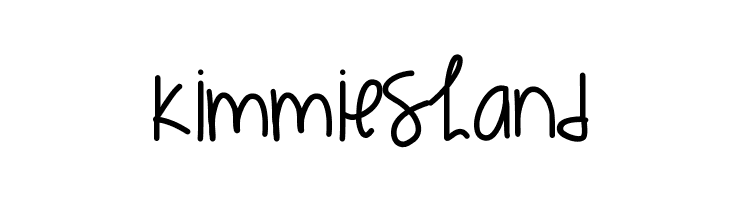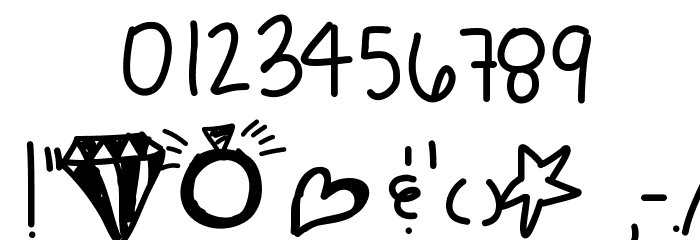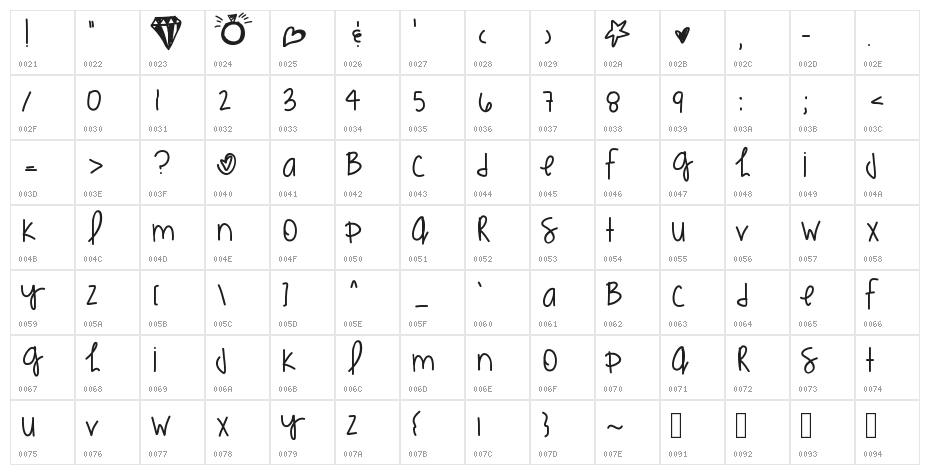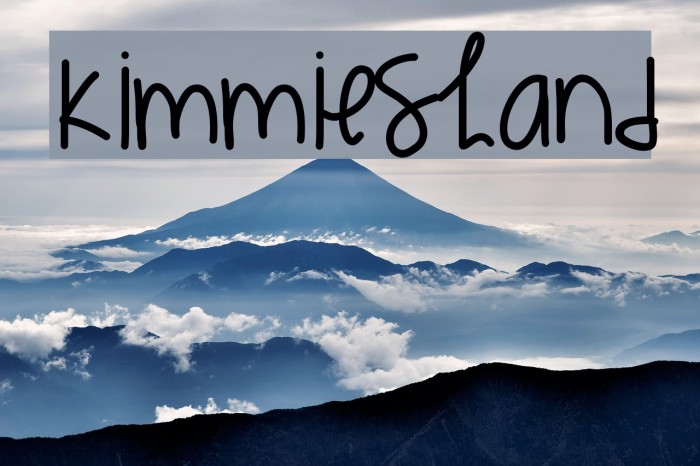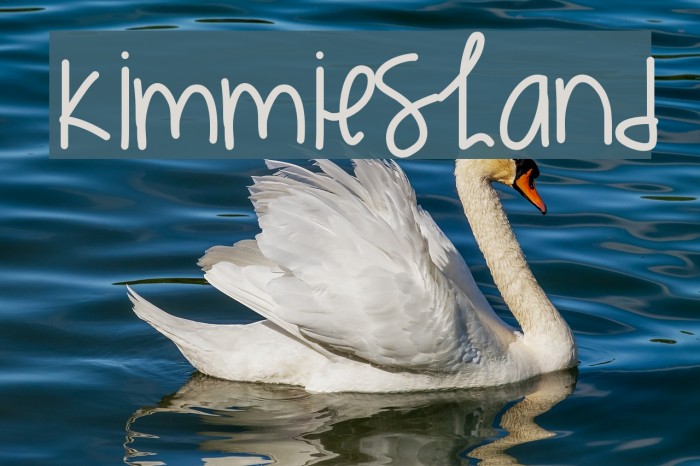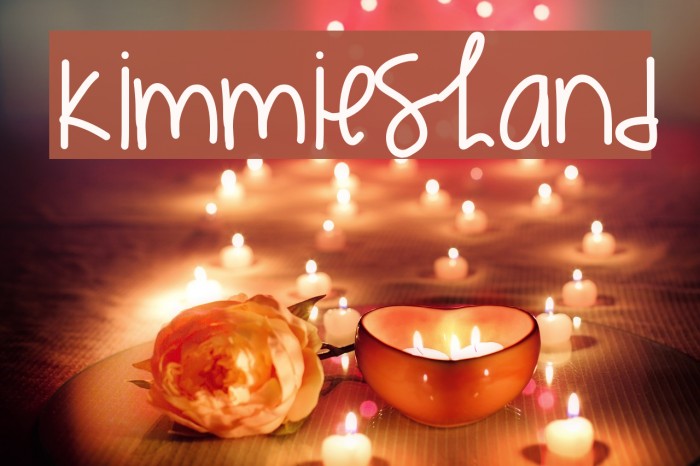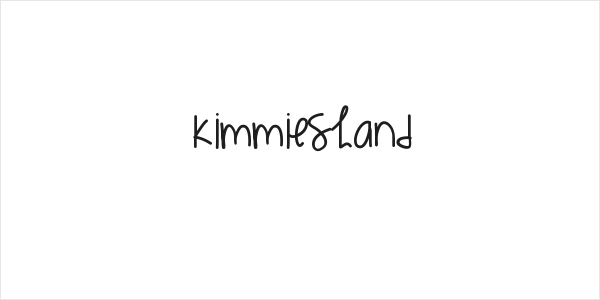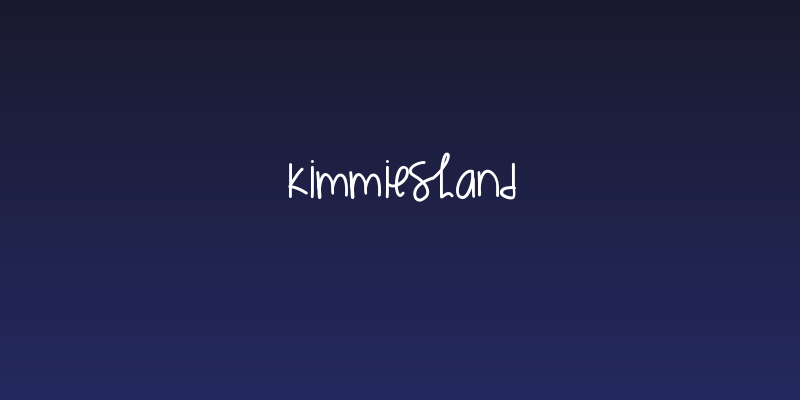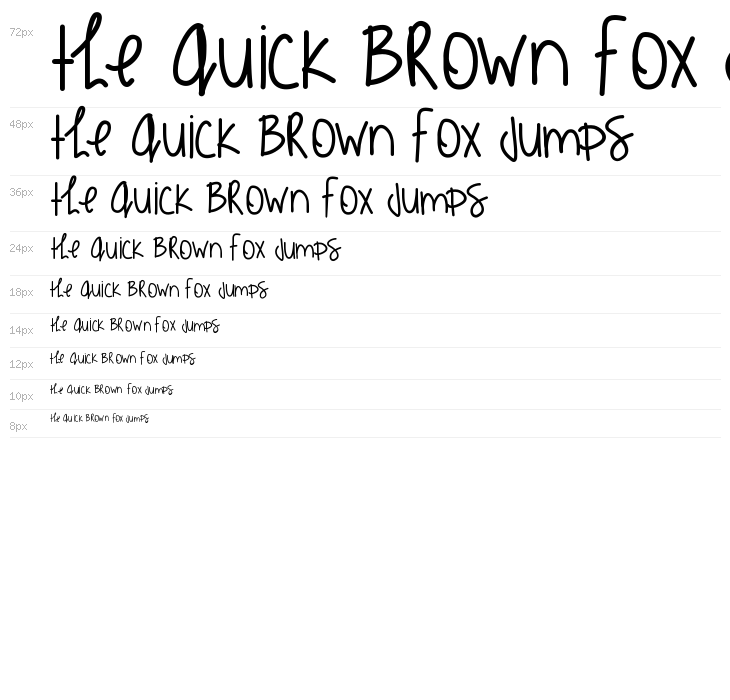
KimmiesHand Font
KimmiesHand Description
This playful and whimsical font features a handwritten style with a casual and friendly appearance. The letters are slightly irregular, adding a personal touch that mimics natural handwriting. The strokes are smooth and consistent, with a medium thickness that ensures readability while maintaining a relaxed vibe. The font includes both uppercase and lowercase letters, numbers, and a variety of special characters, making it versatile for different uses. Its informal style is perfect for projects that require a touch of personality and warmth.
| Use Case | Greeting cards, Personal invitations, Children's books |
| Proposed Projects | Ideal for greeting cards, personal invitations, children's books, and playful branding. |